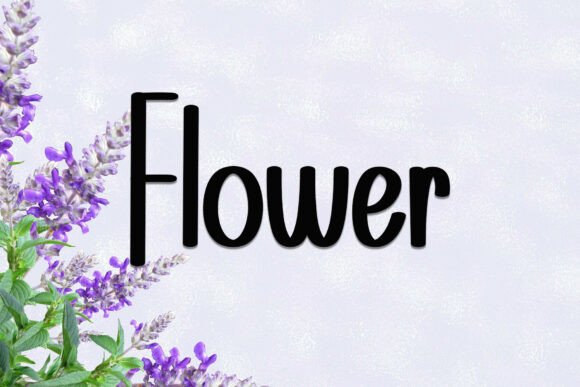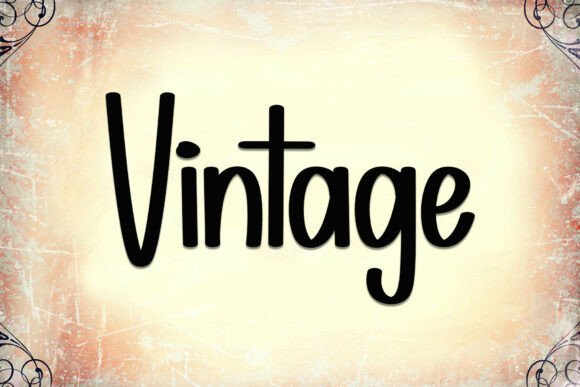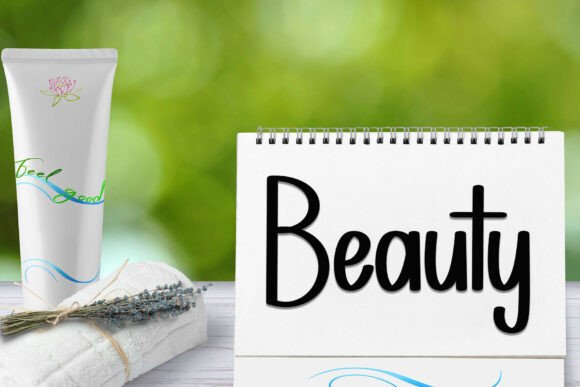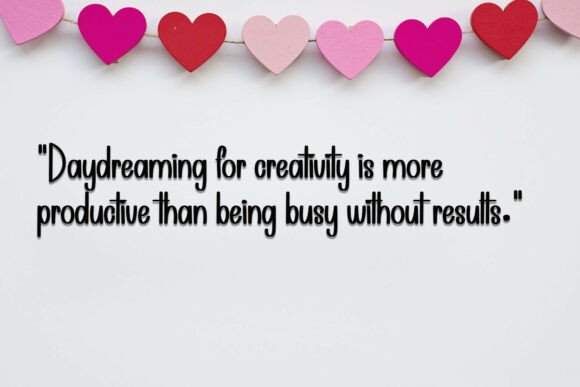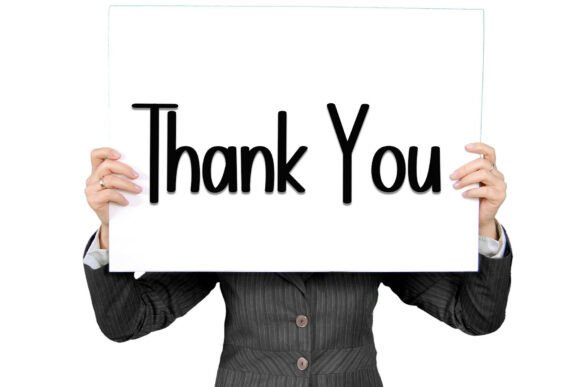
Dreaming Font: The Sweet and Cursive Handwritten Font for Elegant Designs
Are you looking for a font that can add a touch of elegance and romance to your designs? Look no further than the Dreaming Font, a sweet and cursive handwritten font that is perfect for a variety of design projects. In this article, we’ll explore the features and benefits of the Dreaming Font, and show you how it can be used to create stunning designs that are sure to impress.
What is Dreaming Font?
Dreaming Font is a beautiful, handwritten font that is designed to add a touch of whimsy and romance to your designs. With its gentle, cursive curves and sweet, flowing lines, this font is perfect for creating elegant and sophisticated designs that are sure to stand out. Whether you’re working on a branding project, a wedding invitation, or a fashion lookbook, the Dreaming Font is the perfect choice.
Key Features of Dreaming Font
• Sweet and Cursive Handwritten Style: The Dreaming Font features a beautiful, handwritten style that is both sweet and cursive. This makes it perfect for creating designs that are elegant, sophisticated, and romantic.
• Versatile and Flexible: The Dreaming Font is incredibly versatile and can be used on a wide range of design projects, from branding and logos to wedding invitations and greeting cards.
• Elegant and Casual: This font is perfect for designers who want to create designs that are both elegant and casual. It’s perfect for adding a touch of sophistication to your designs without making them look too formal.
• Perfect for Romantic Designs: With its sweet and cursive style, the Dreaming Font is perfect for creating romantic designs, such as wedding invitations, Valentine’s Day cards, and anniversary gifts.
How to Use Dreaming Font in Your Designs
The Dreaming Font is incredibly easy to use and can be incorporated into a wide range of design projects. Here are a few ideas to get you started:
• Branding and Logos: Use the Dreaming Font to create elegant and sophisticated logos that are sure to stand out.
• Wedding Invitations and Stationery: Add a touch of romance and elegance to your wedding invitations and stationery with the Dreaming Font.
• Greeting Cards and Gift Tags: Use the Dreaming Font to create beautiful and heartfelt greeting cards and gift tags.
• Fashion Lookbooks and Marketing Materials: Add a touch of elegance and sophistication to your fashion lookbooks and marketing materials with the Dreaming Font.
Tips and Tricks for Using Dreaming Font
Here are a few tips and tricks to help you get the most out of the Dreaming Font:
• Pair it with Bold Fonts: Pair the Dreaming Font with bold fonts to create a striking contrast that is sure to grab attention.
• Use it for Headlines and Titles: Use the Dreaming Font for headlines and titles to add a touch of elegance and sophistication to your designs.
• Experiment with Colors: Experiment with different colors to find the perfect combination that complements the Dreaming Font.
In conclusion, the Dreaming Font is a beautiful and versatile font that is perfect for designers and crafters who want to add a touch of elegance and romance to their designs. With its sweet and cursive handwritten style, this font is perfect for a wide range of design projects, from branding and logos to wedding invitations and greeting cards. So why wait? Download the Dreaming Font today and start creating stunning designs that are sure to impress!